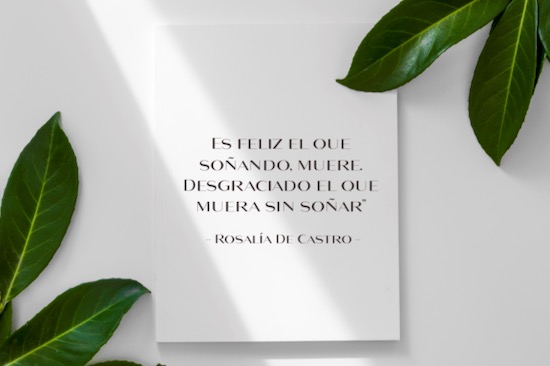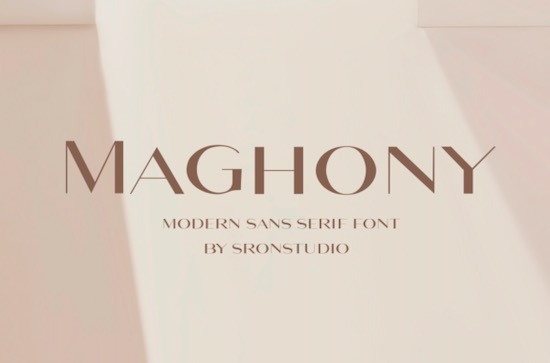
Maghony font is a vintage style sans typeface that has been modernized with its gorgeous curves as well as cut-ins creating it one of the most memorable Sans Serif fonts in the design world. This Sans font can be used for Monograms, Pull Quotes, Mastheads, and Wordmark Logos are displaying both masculines, feminine qualities.
Maghony Sans Serif Font
Maghony Font